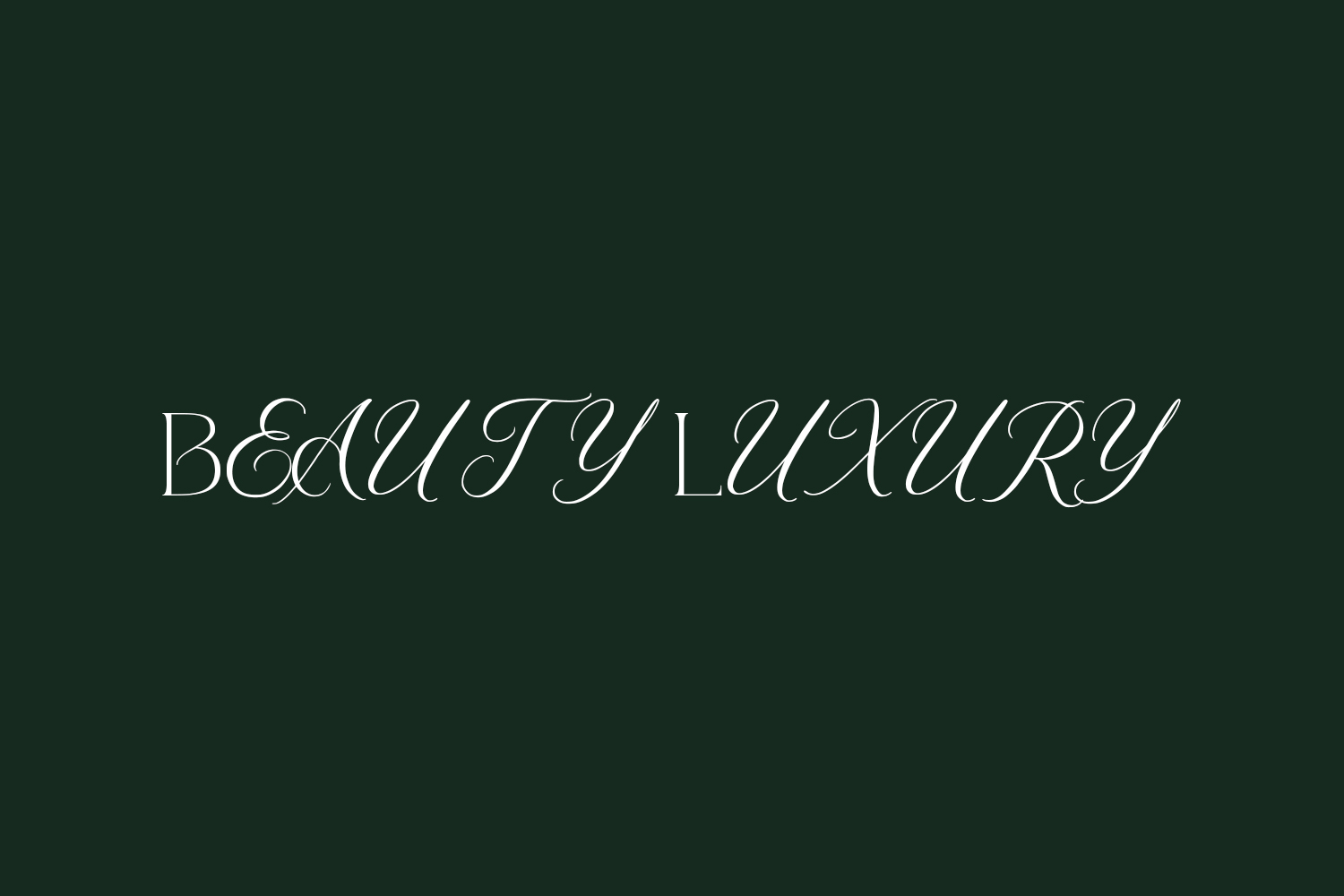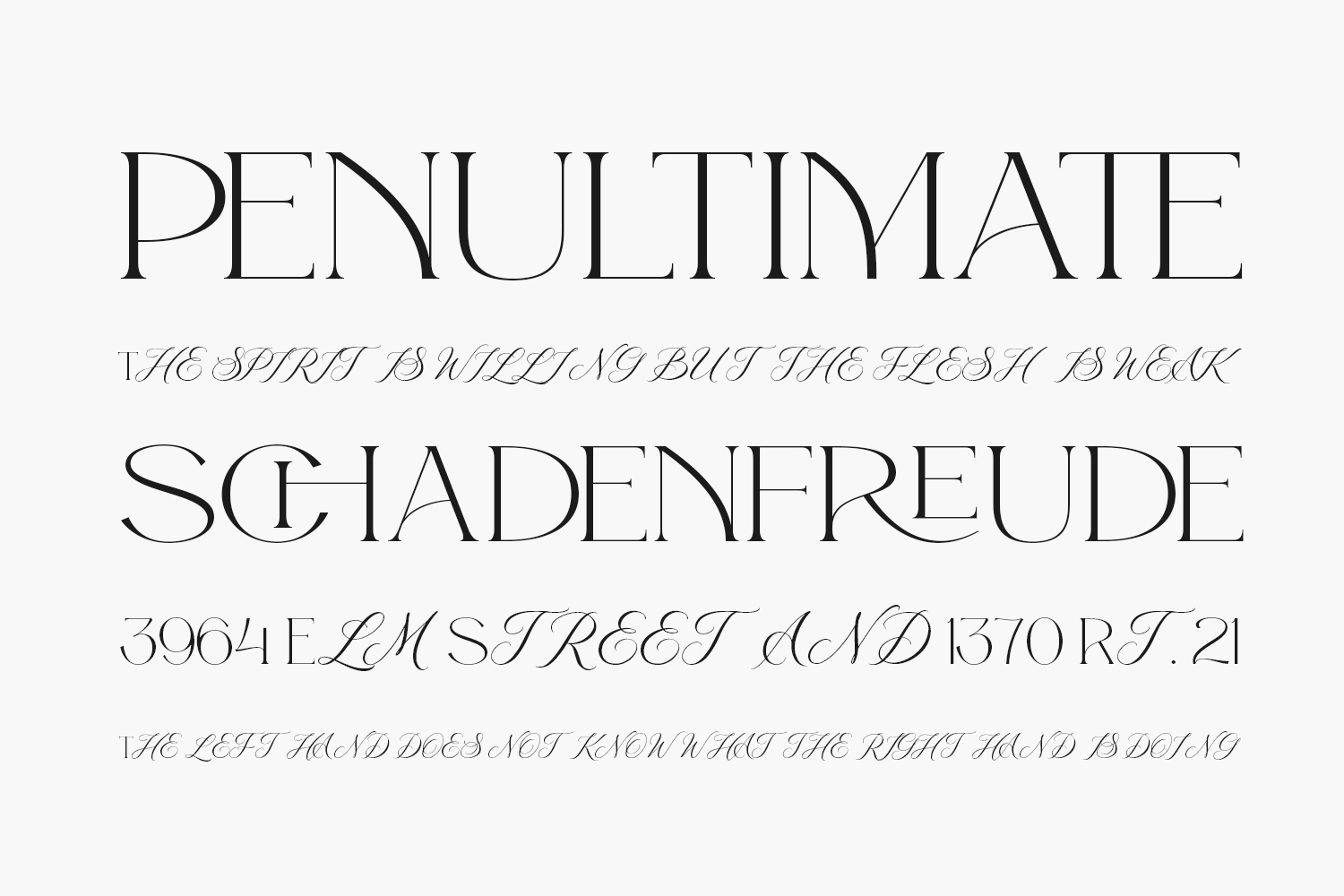
Introducing Beauty Luxury Free Font, a sleek display font designed to bring typographic excellence to various design ventures. Perfect for logos, branding, social media posts, advertisements, product designs, and beyond, Beauty Luxury adds a touch of sophistication to any project it graces. Download the font for free if you need it for personal use or purchase the full version for commercial use.